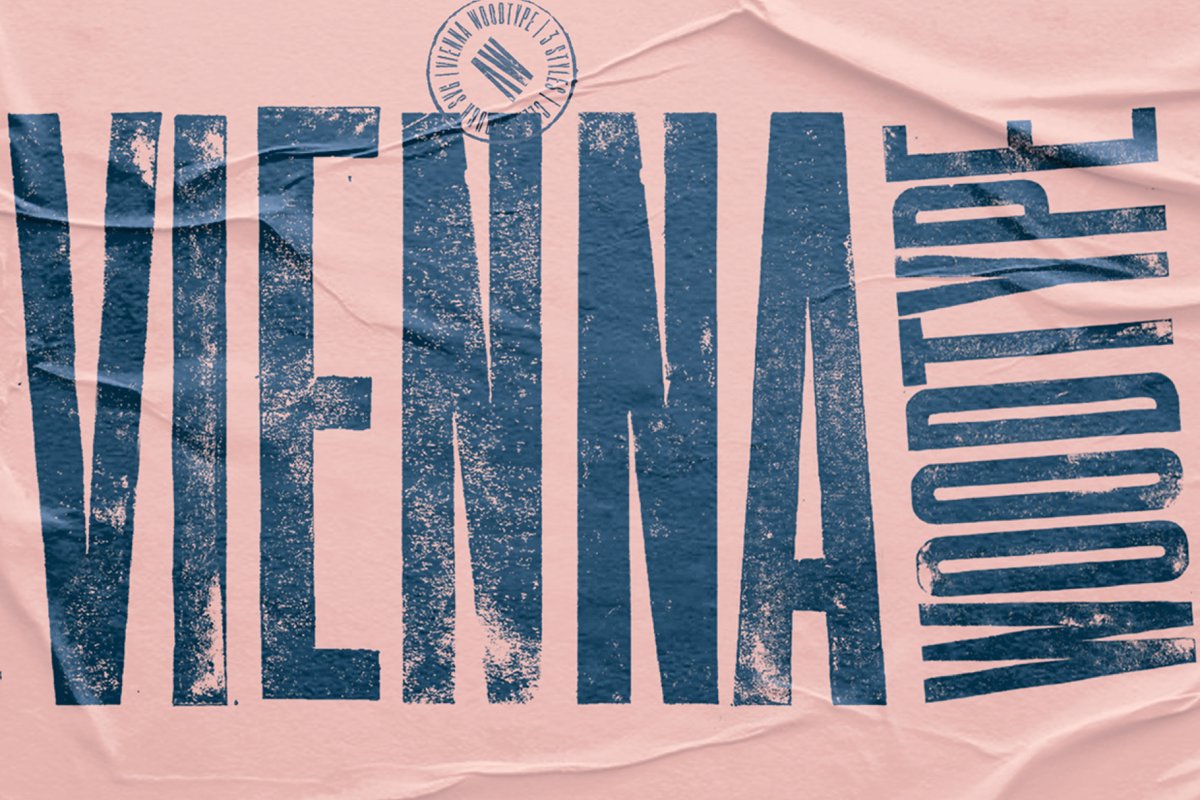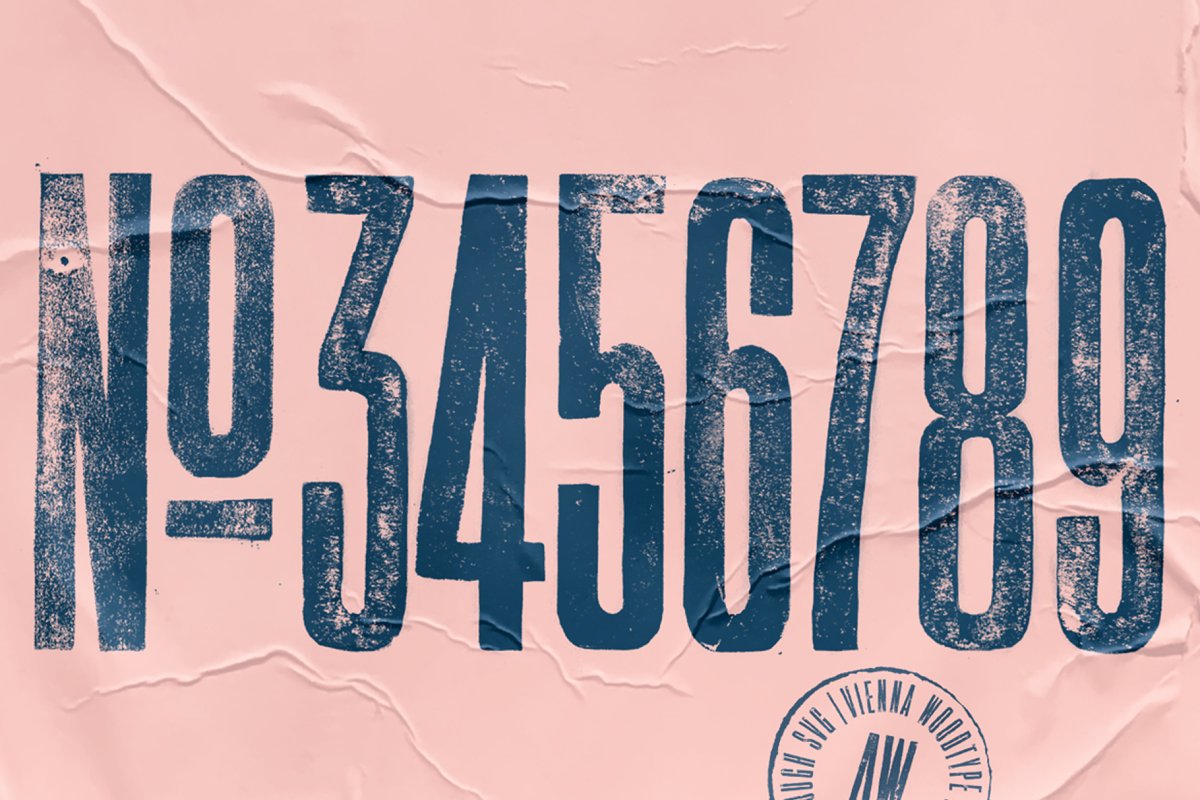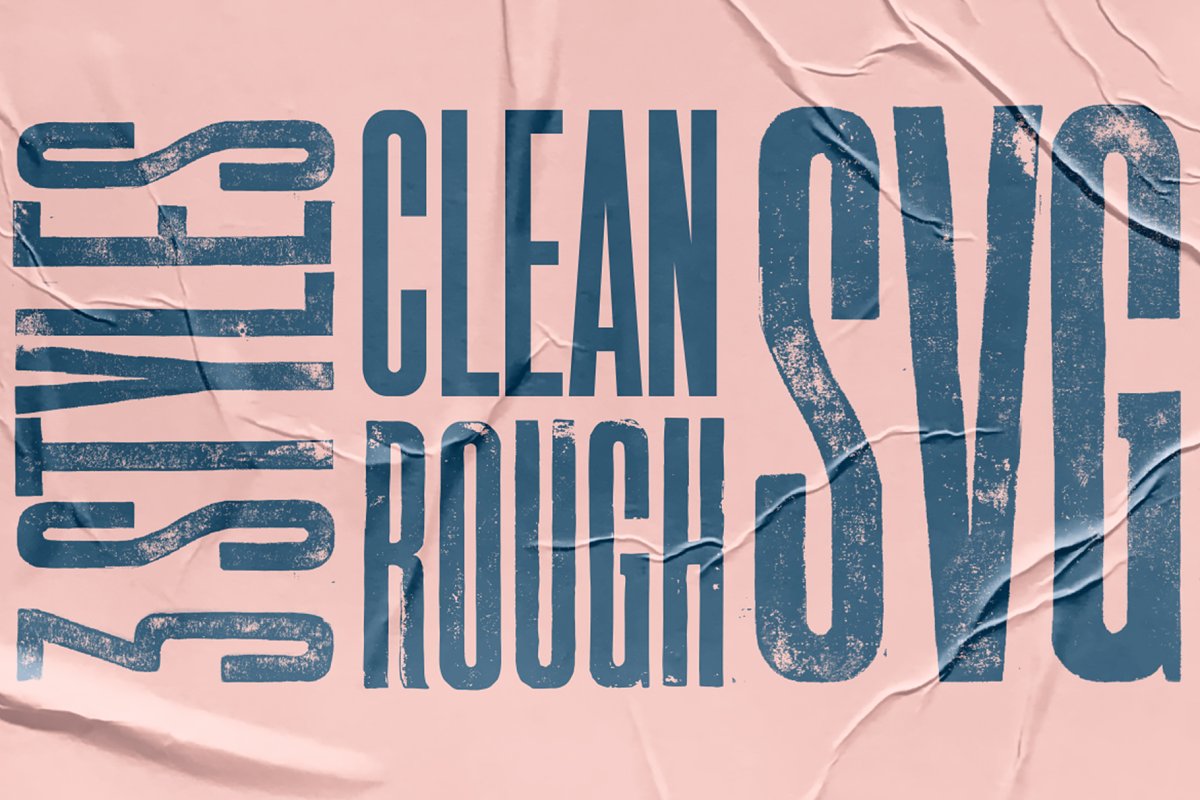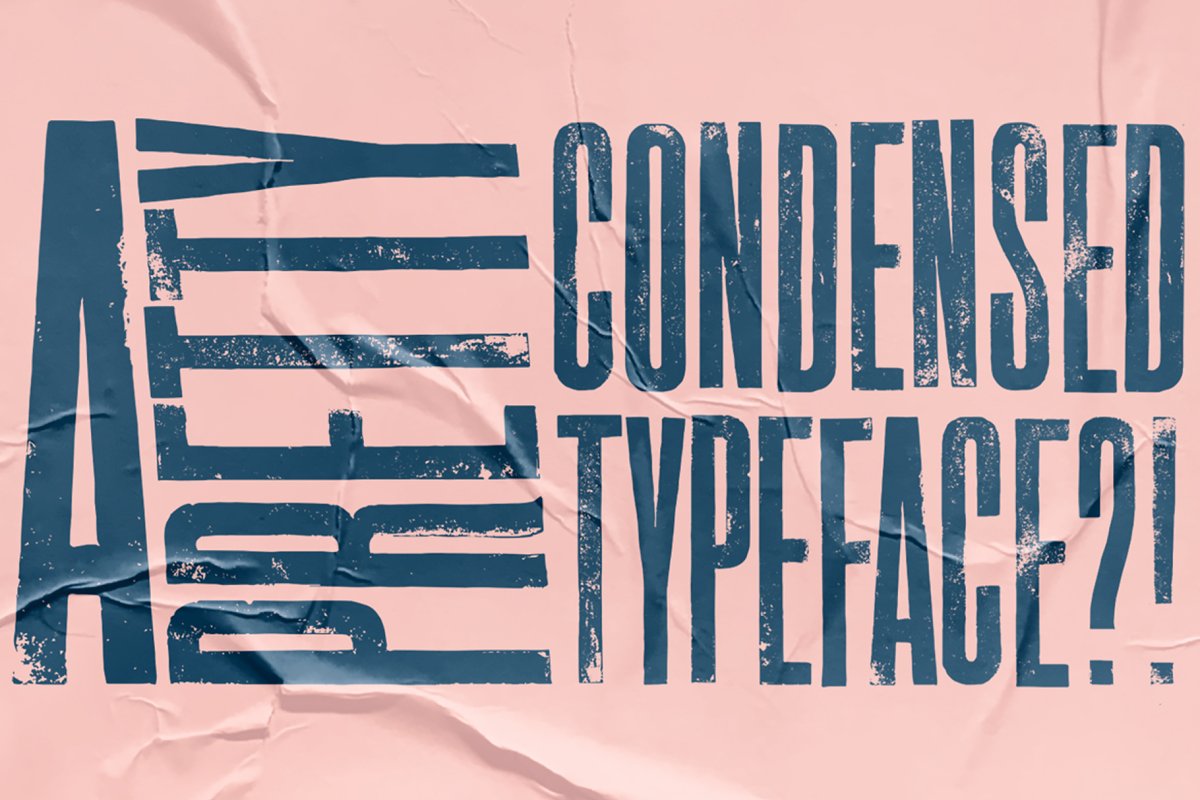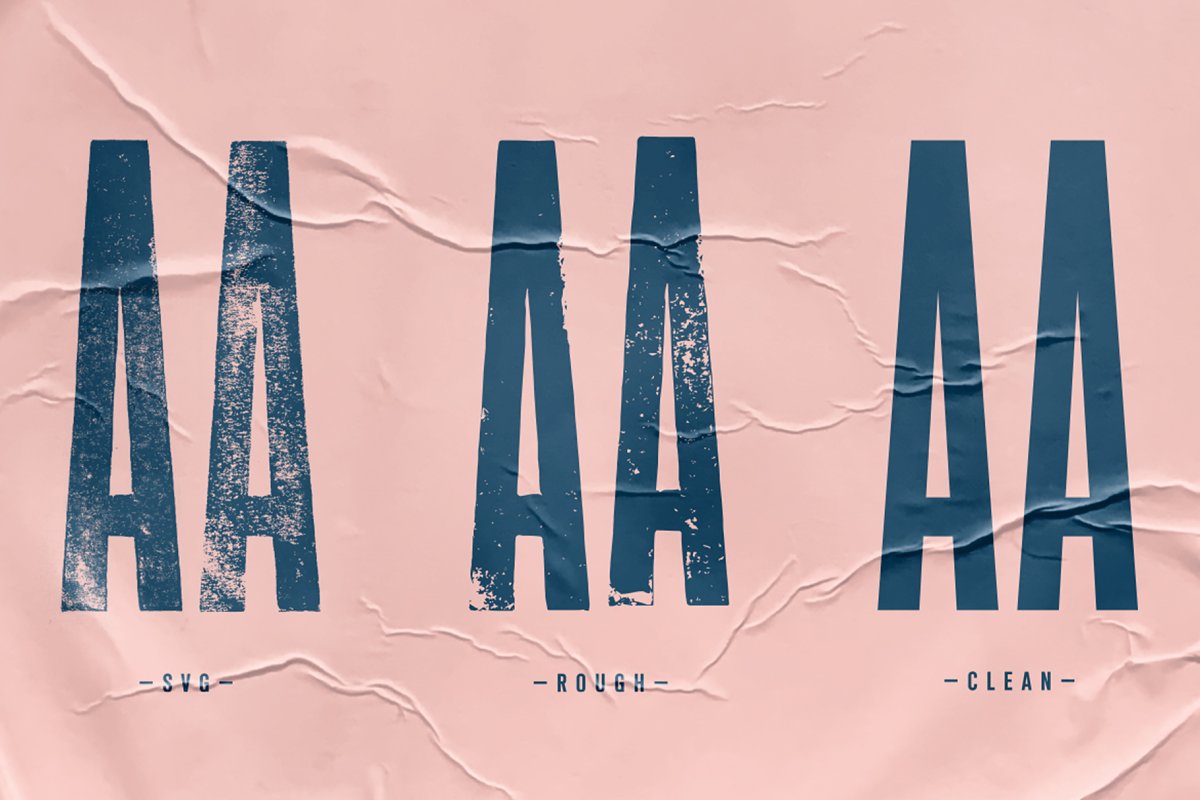
About the Vienna Woodtype Font
This font is based on real prints made out of a linocut. The glyphs were handprinted, then scanned and then turned into a computer font. Available in a Clean, Rough and in a SVG Version